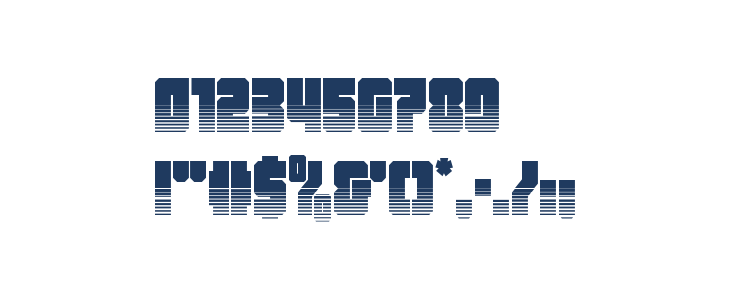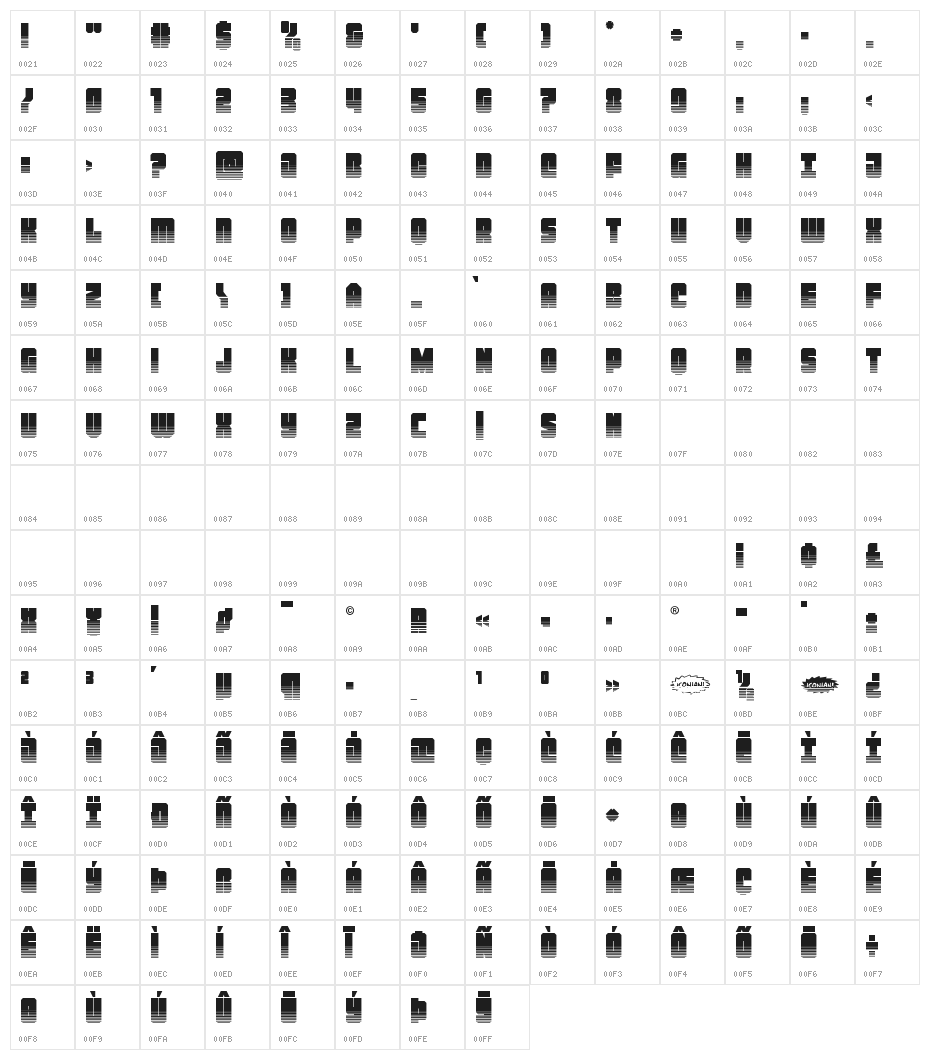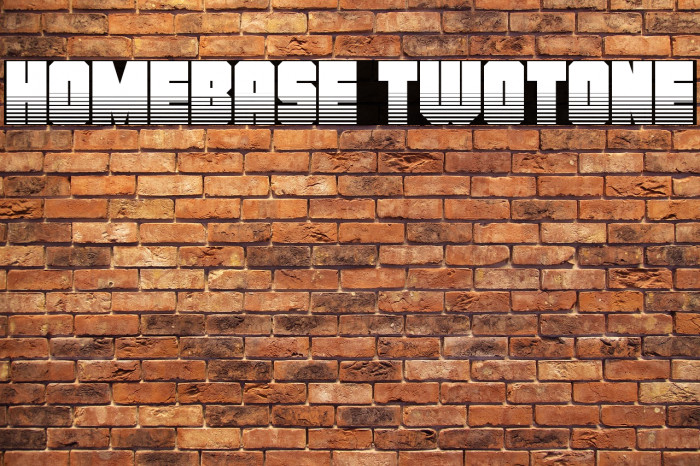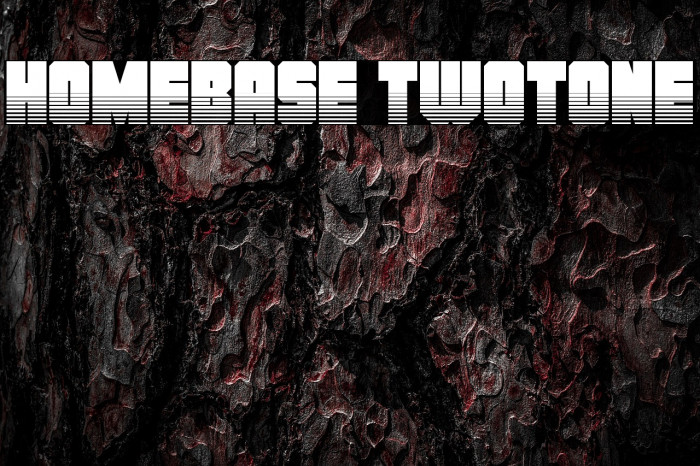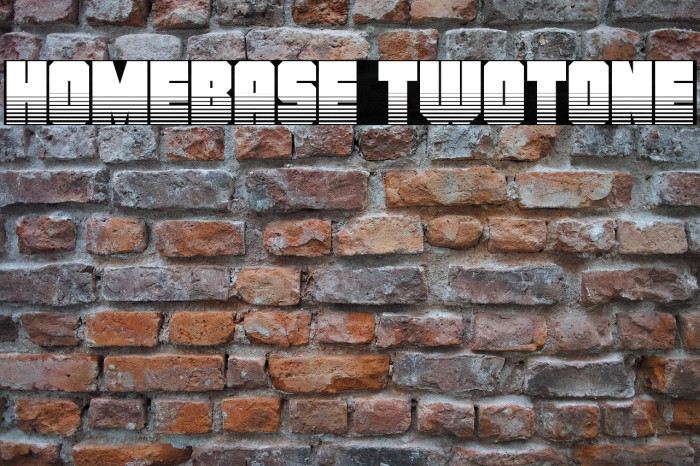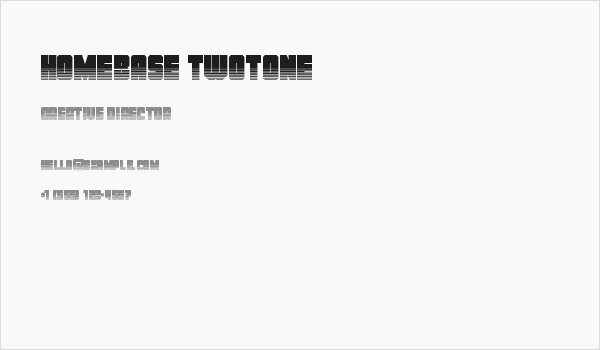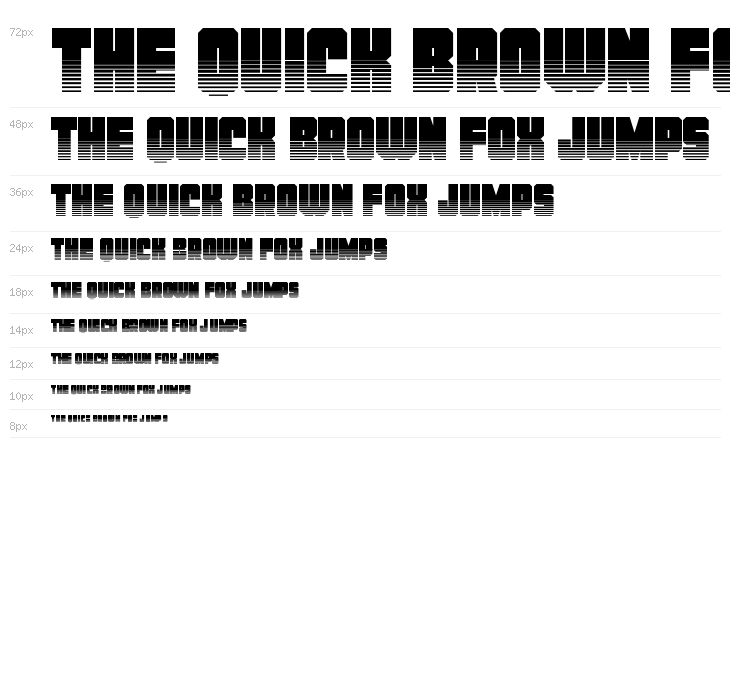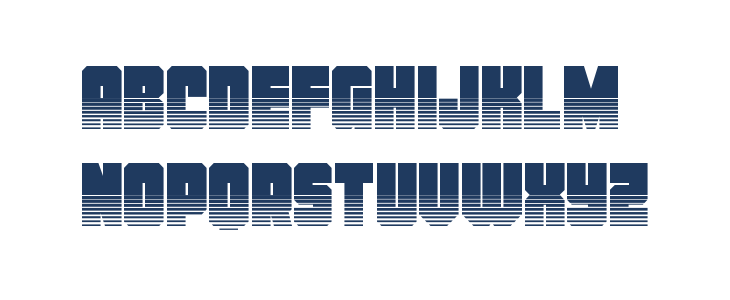
Homebase Twotone Font
Homebase Twotone Description
This font features a bold, geometric design with a distinctive two-tone effect created by horizontal lines. The uppercase and lowercase letters maintain a consistent blocky structure, giving it a strong and impactful appearance. The numbers and special characters follow the same stylistic approach, ensuring uniformity across all glyphs. The font's unique striped pattern adds a sense of depth and movement, making it stand out in any design. Its modern and futuristic aesthetic is ideal for projects that require a bold statement.
| Proposed Projects | Ideal for branding, posters, album covers, and any design that requires a strong, modern statement. |